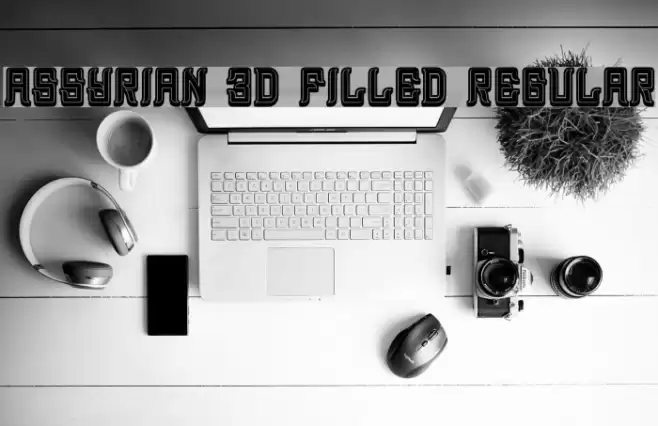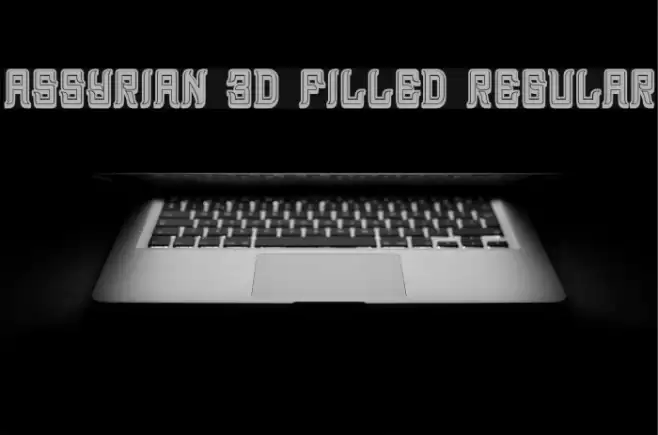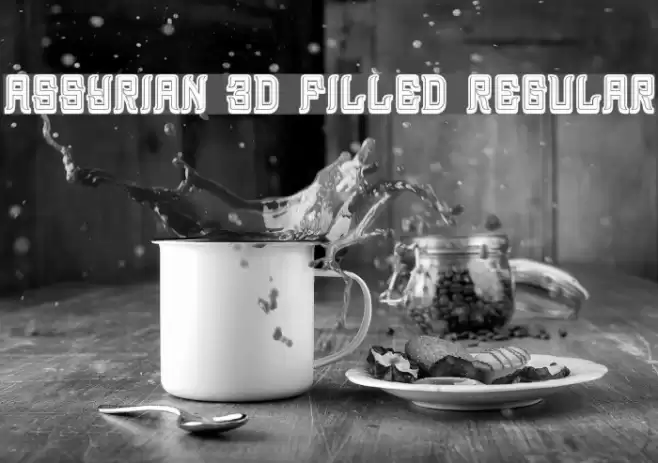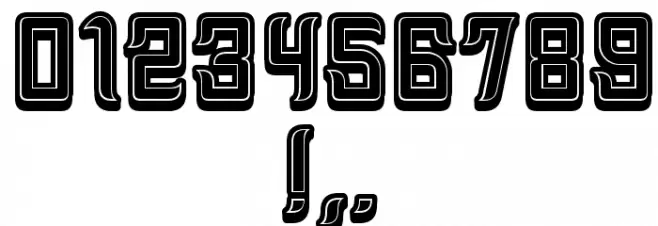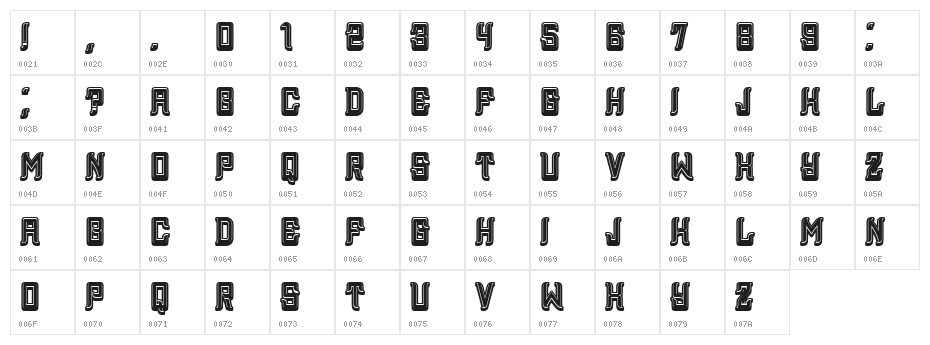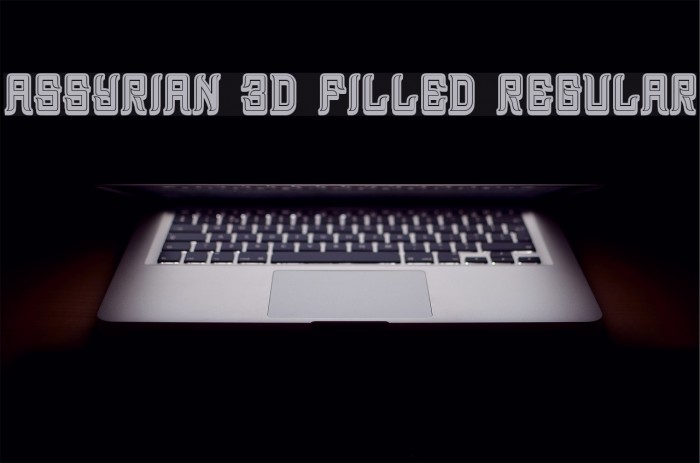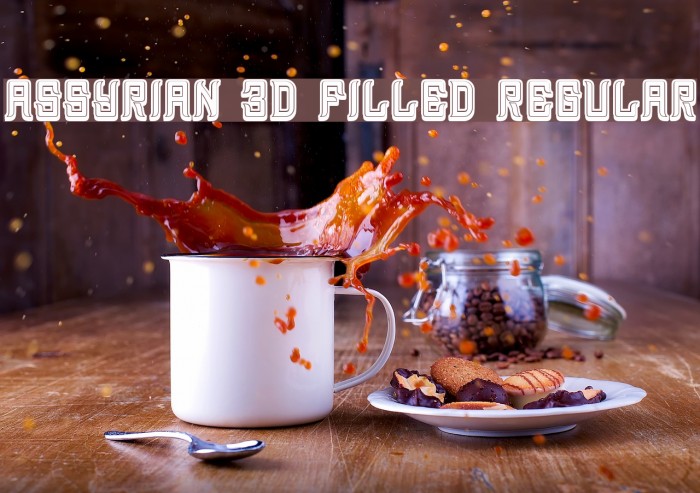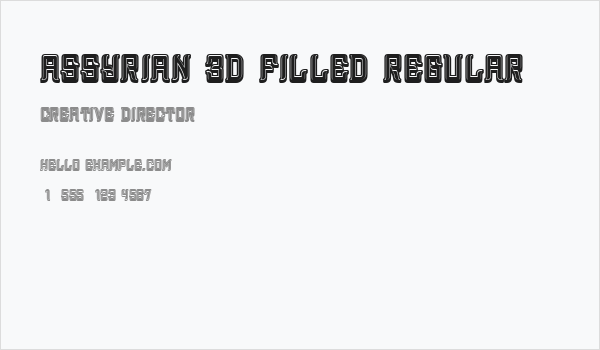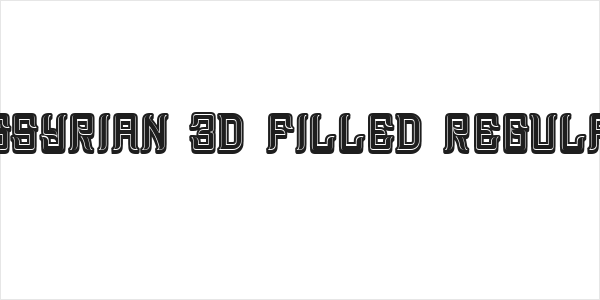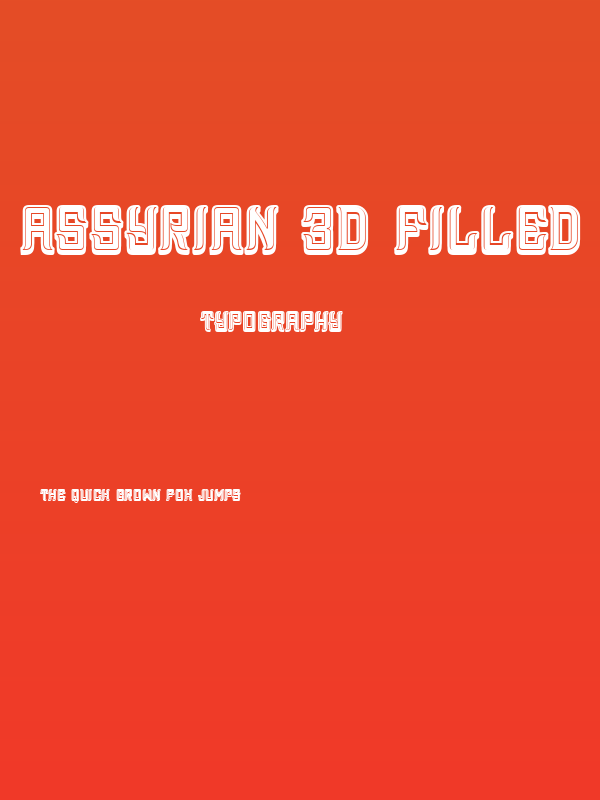
Assyrian 3D Filled Regular Font
Assyrian 3D Filled Regular Description
This font features a bold, three-dimensional design with a filled interior, creating a striking and impactful appearance. The characters are outlined with a thick black border, enhancing the 3D effect and making each letter stand out prominently. The style is reminiscent of vintage signage, with a modern twist that adds depth and dimension. The uppercase and lowercase letters maintain a consistent style, with sharp angles and clean lines that contribute to the overall geometric aesthetic. Numbers and special characters are designed to match the bold, filled look, ensuring a cohesive appearance across all text elements.
A bold, 3D-filled font with a vintage yet modern geometric style from Uncategorized fonts.
- Proposed Projects: Ideal for projects requiring a strong visual impact, such as posters, logos, and headlines. Its unique style is perfect for branding and advertising materials that aim to capture attention.
- Overall Style: Modern, Vintage